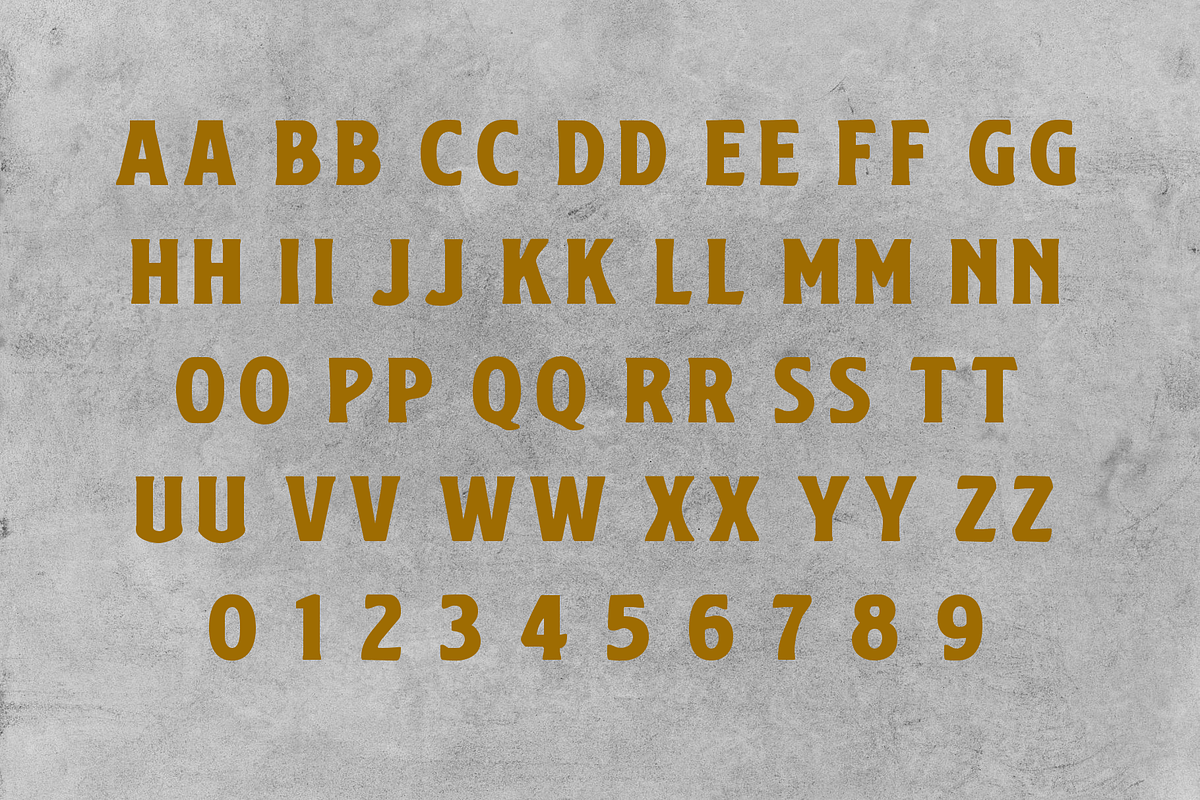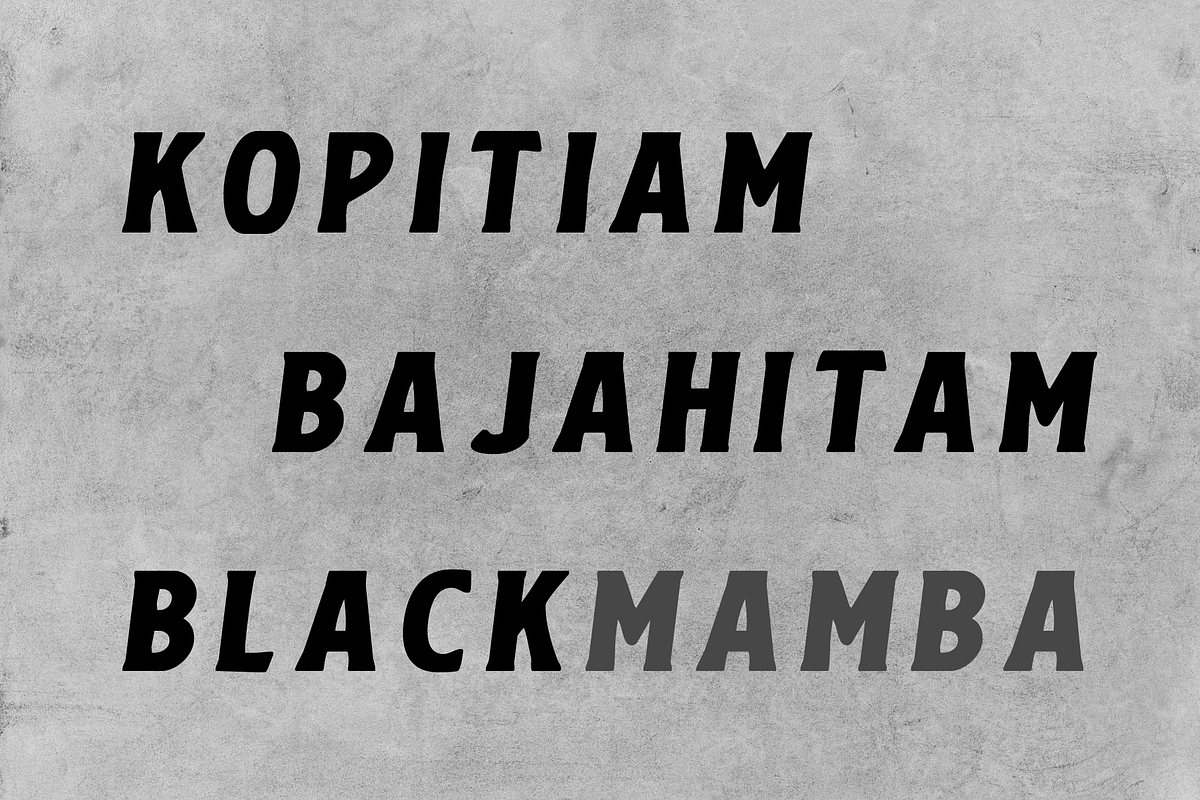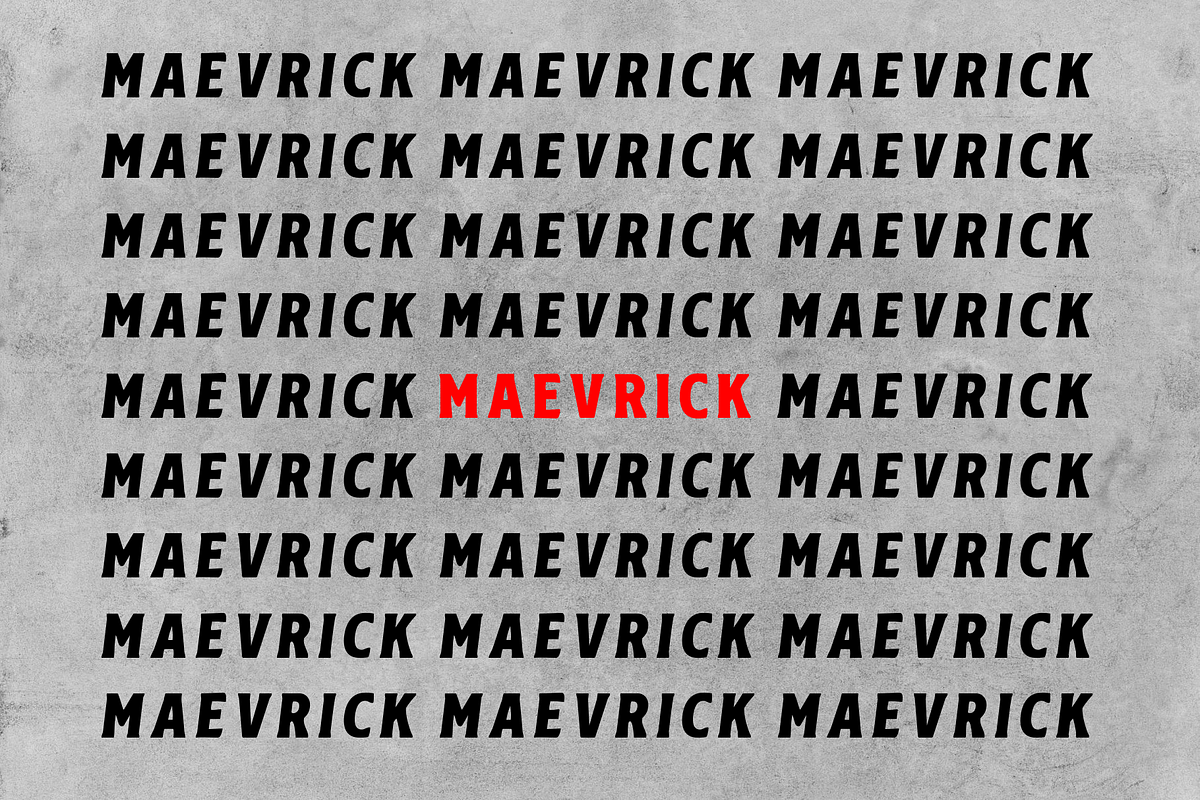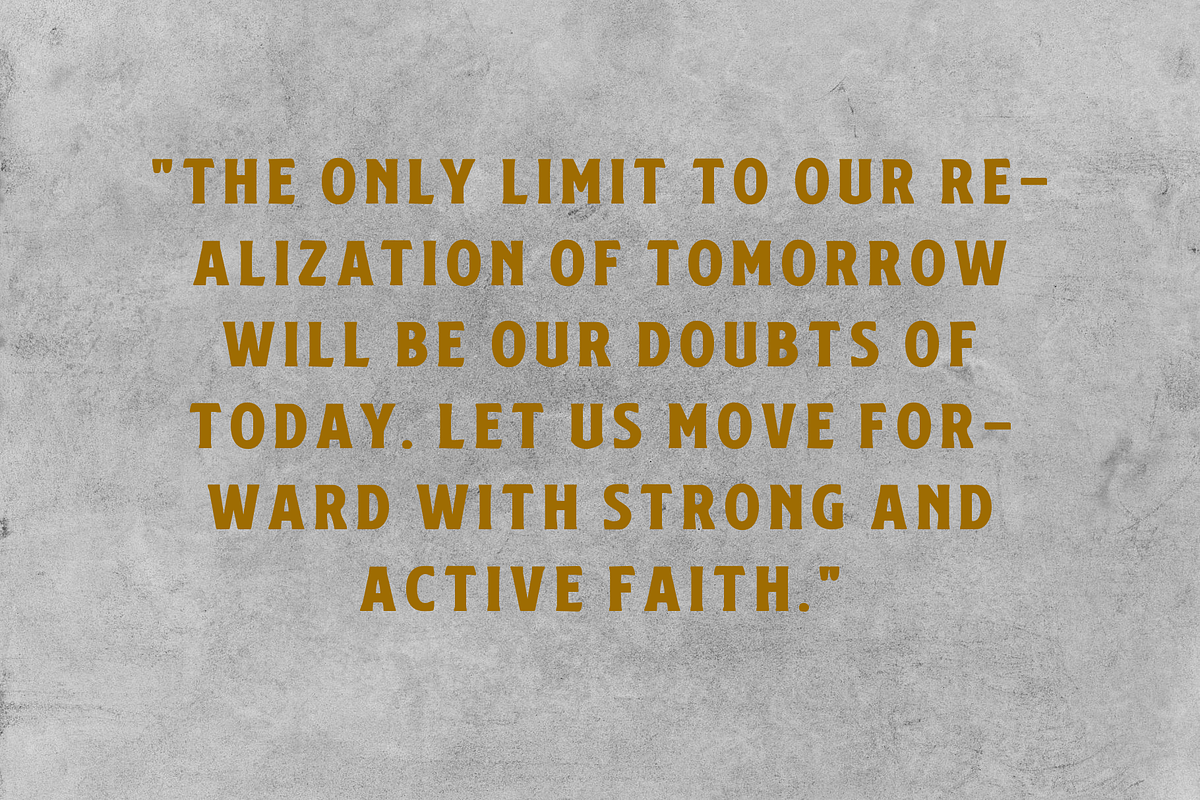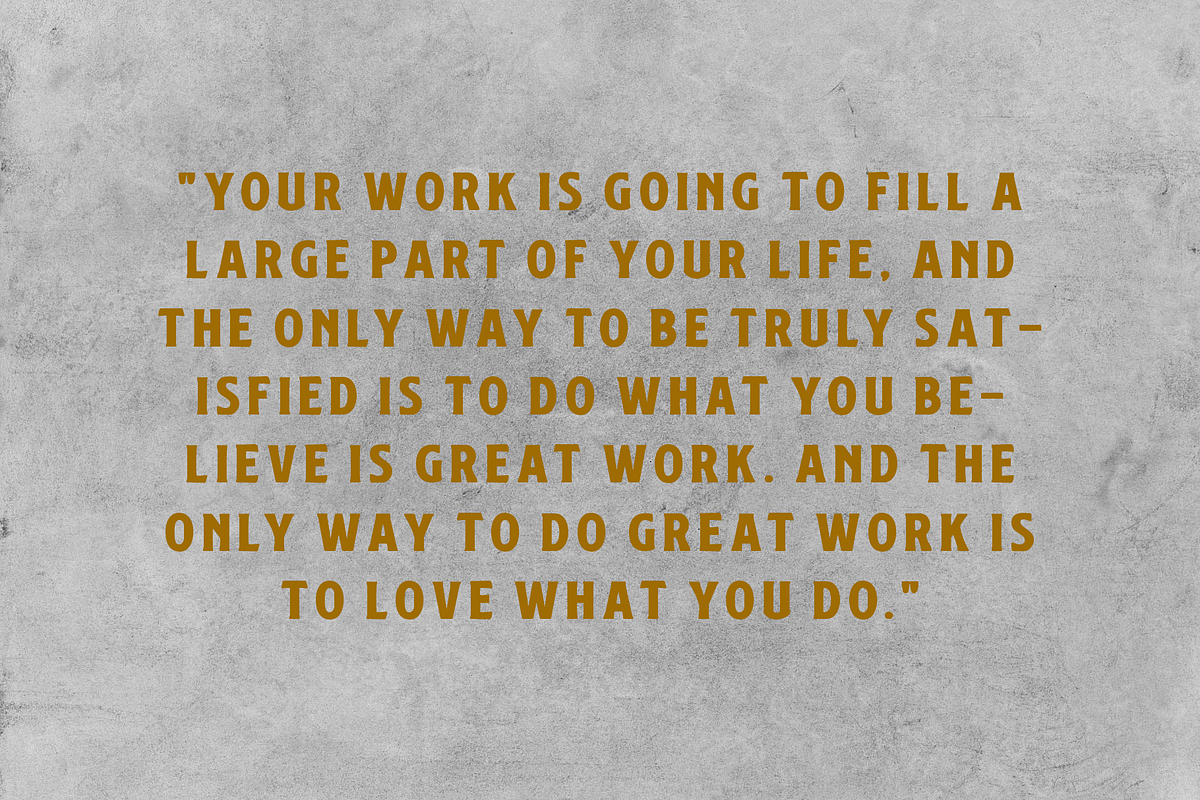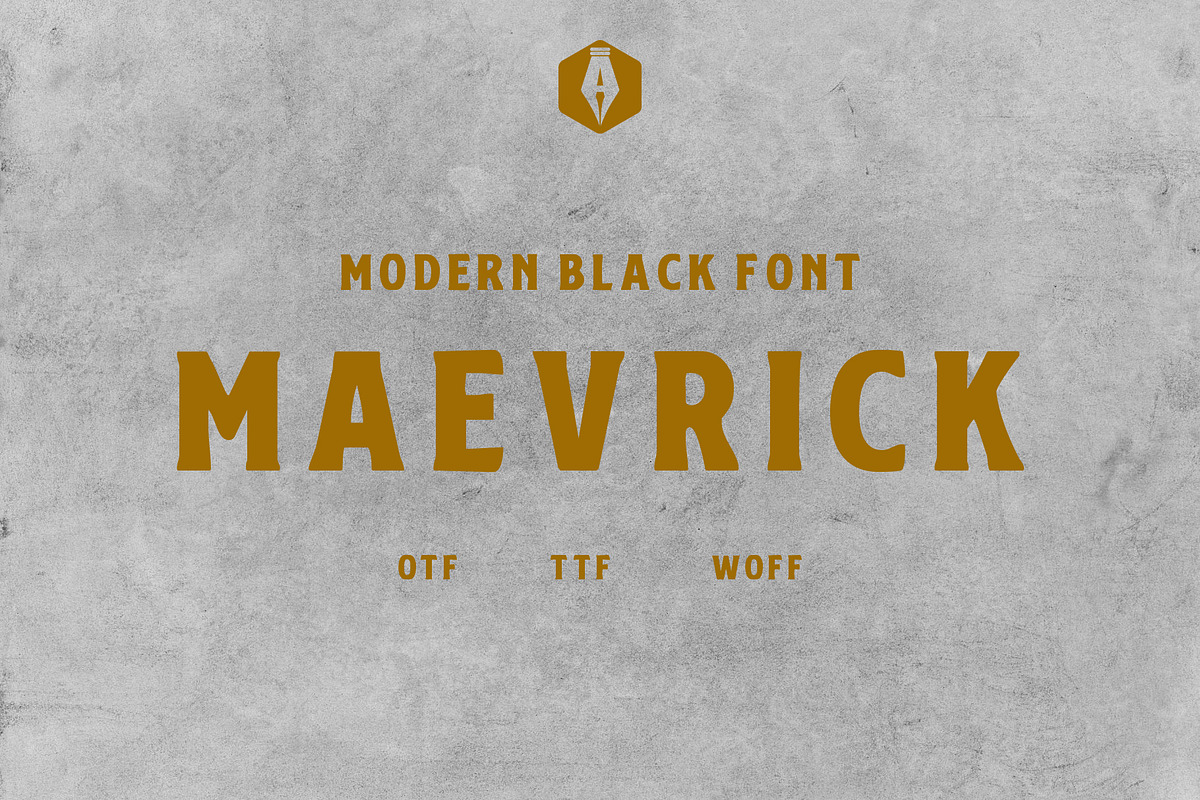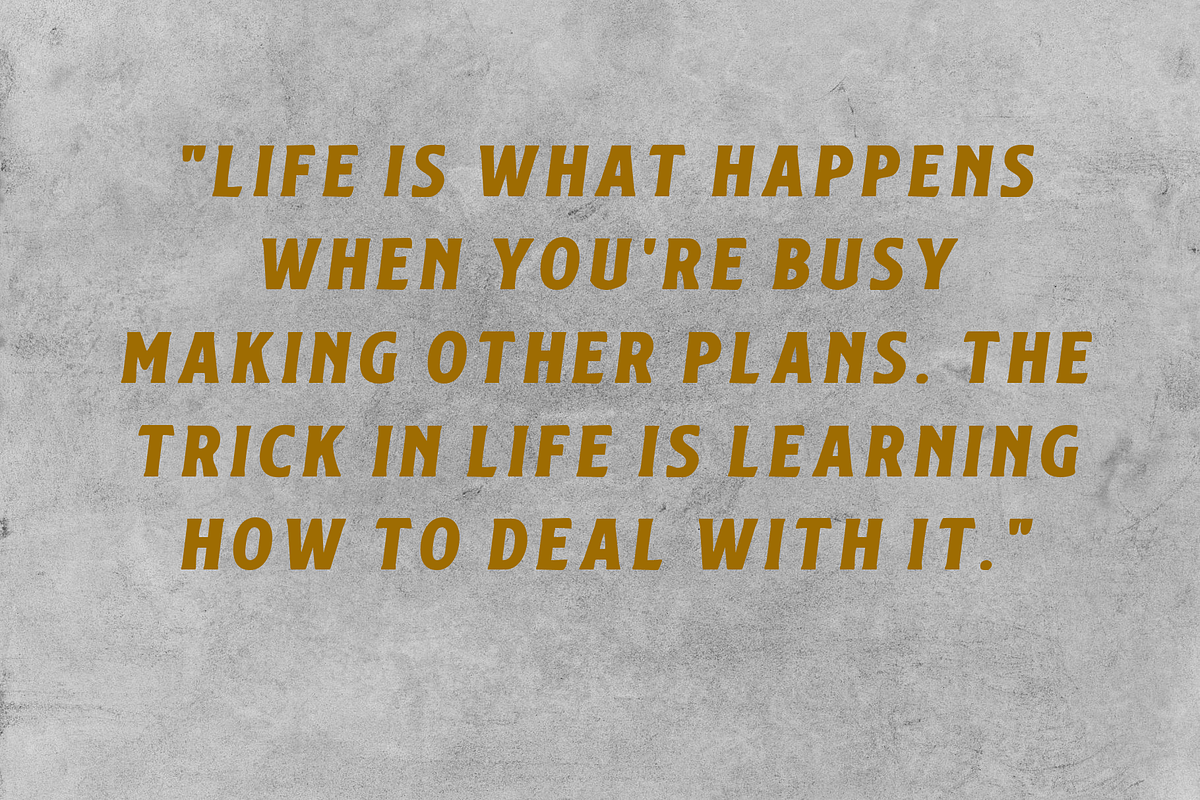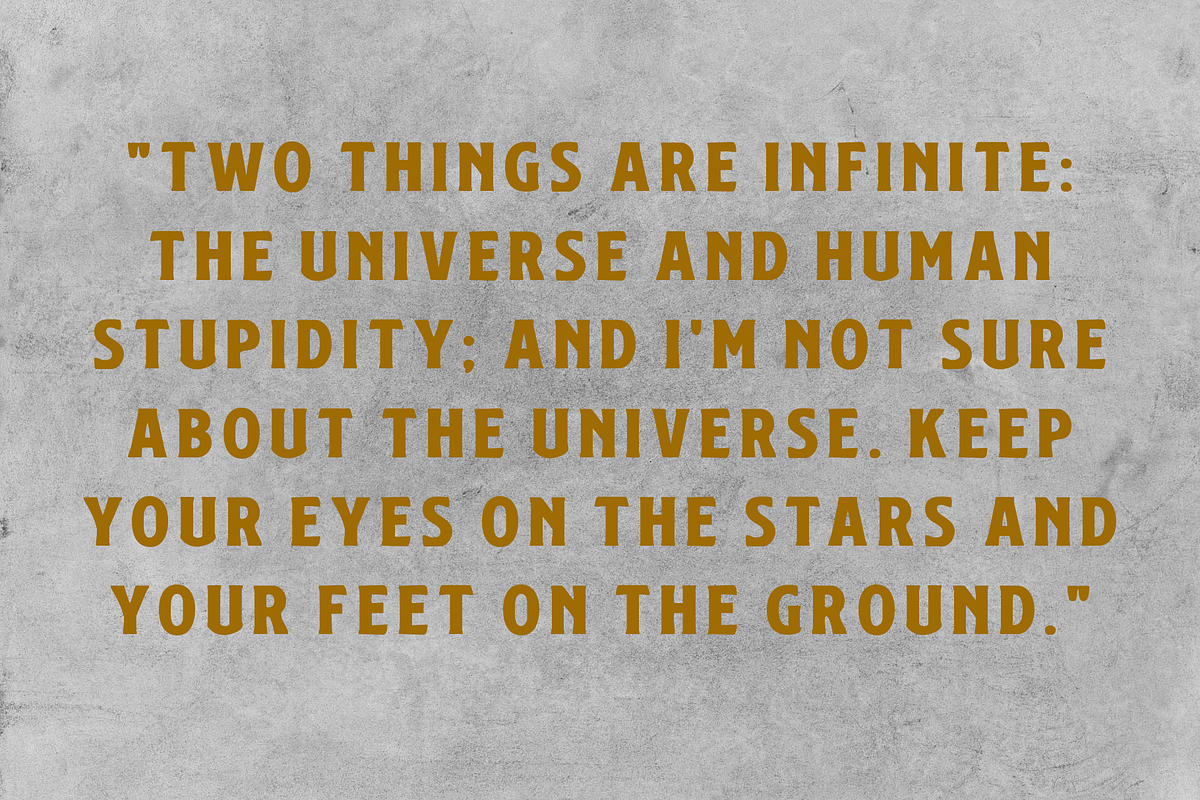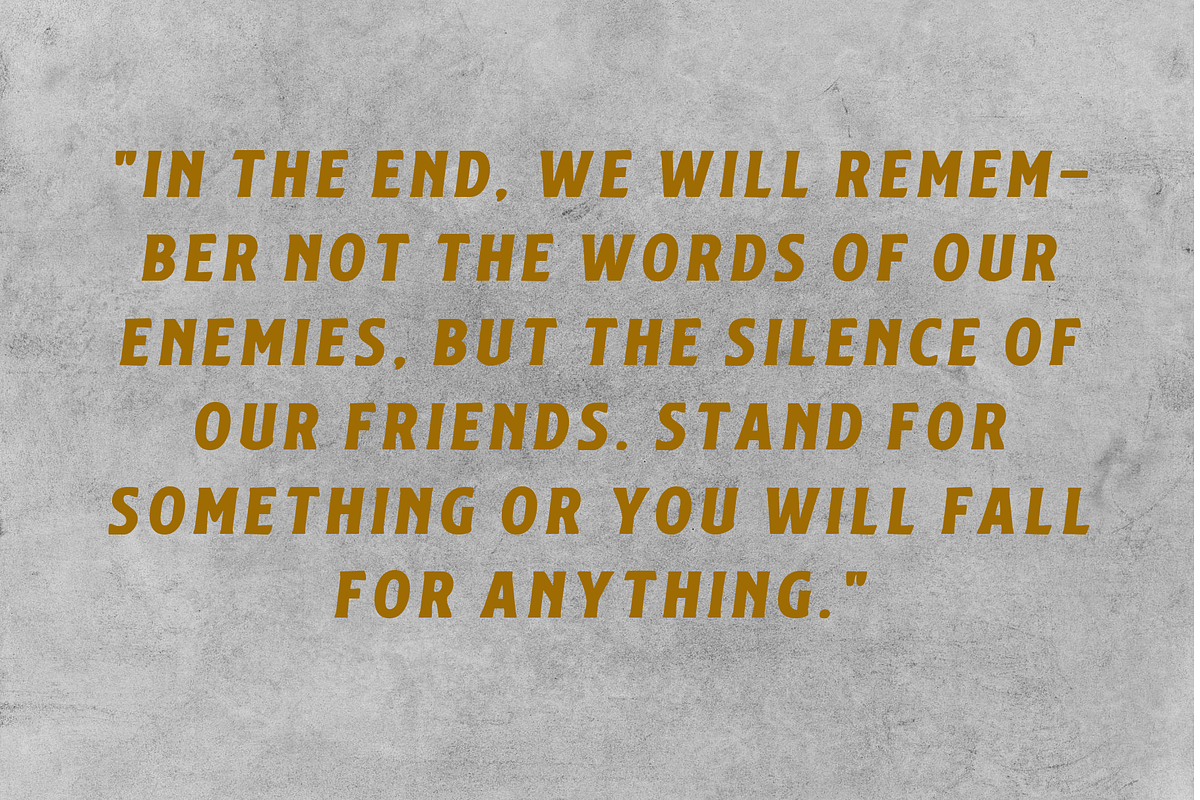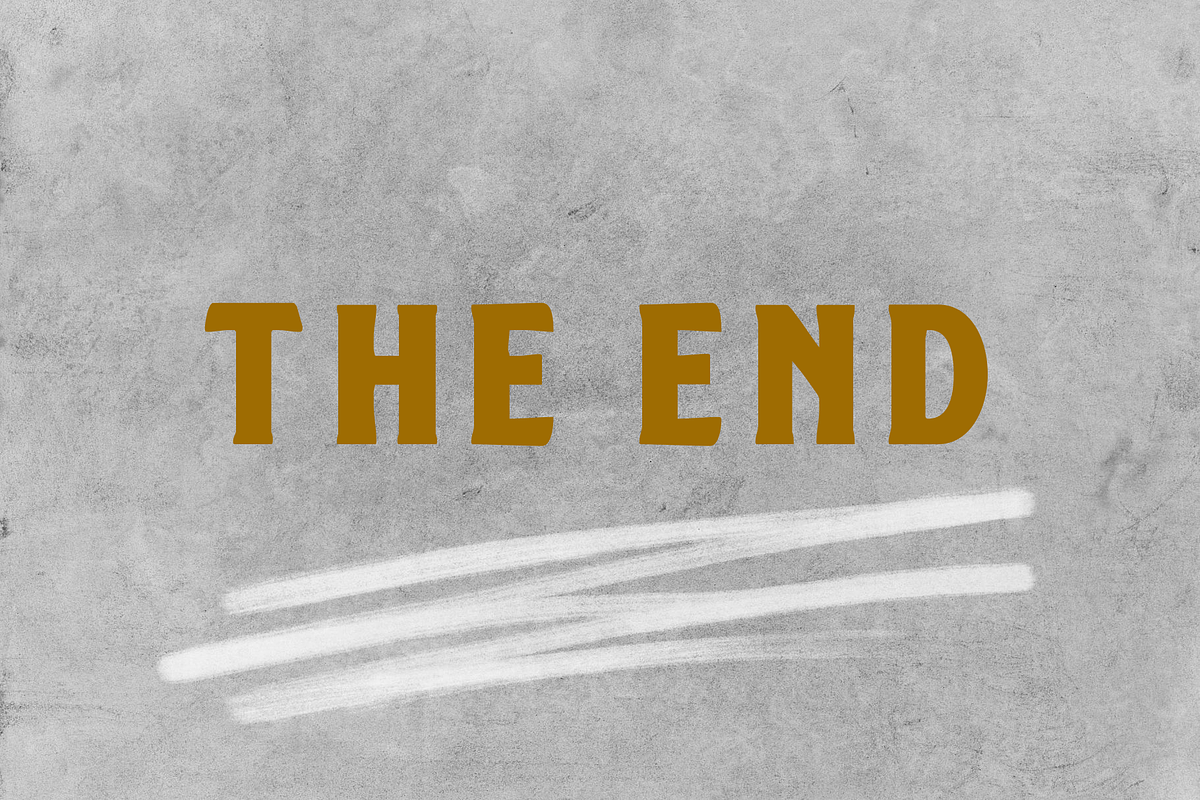
Maevrick Bold Modern
Maevrick Bold Modern Font is a typographic masterpiece that effortlessly combines contemporary design elements with a bold and commanding presence. This font is a visual embodiment of sophistication, featuring clean lines, strong geometric shapes, and a modern aesthetic that makes it stand out in any design context. The bold weight of the characters exudes confidence, making Maevrick an ideal choice for projects that demand attention and assertiveness.
The sharp and well-defined letterforms of Maevrick Bold Modern Font make it versatile across various design applications. Whether used for headlines, branding, or marketing materials, this font commands legibility and readability while maintaining a sense of avant-garde style. Its sleek and modern look is not only visually striking but also reflects a keen understanding of contemporary design trends, making it a go-to choice for designers looking to infuse their projects with a bold and cutting-edge appeal.
Maevrick Bold Modern Font transcends the limitations of traditional typefaces, offering a fresh and innovative approach to typography. Its boldness does not compromise on elegance, making it suitable for a wide range of design projects where a modern, dynamic, and assertive visual language is desired. With Maevrick, designers can effortlessly elevate their creations, leaving a lasting impression with its bold strokes and modern sensibilities.